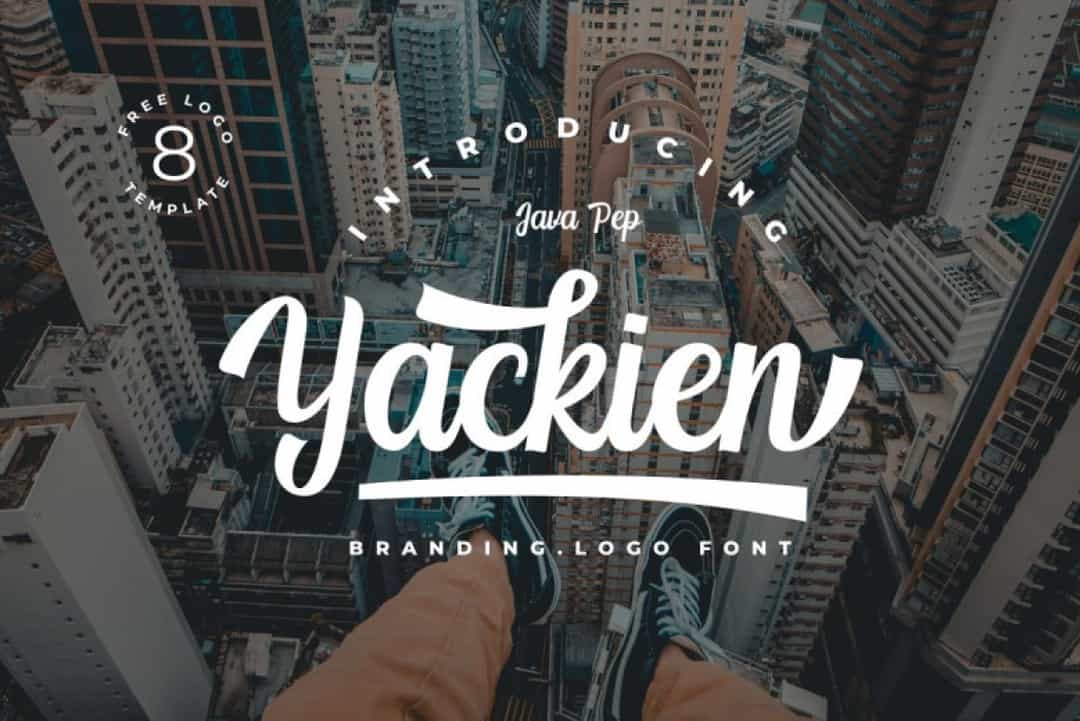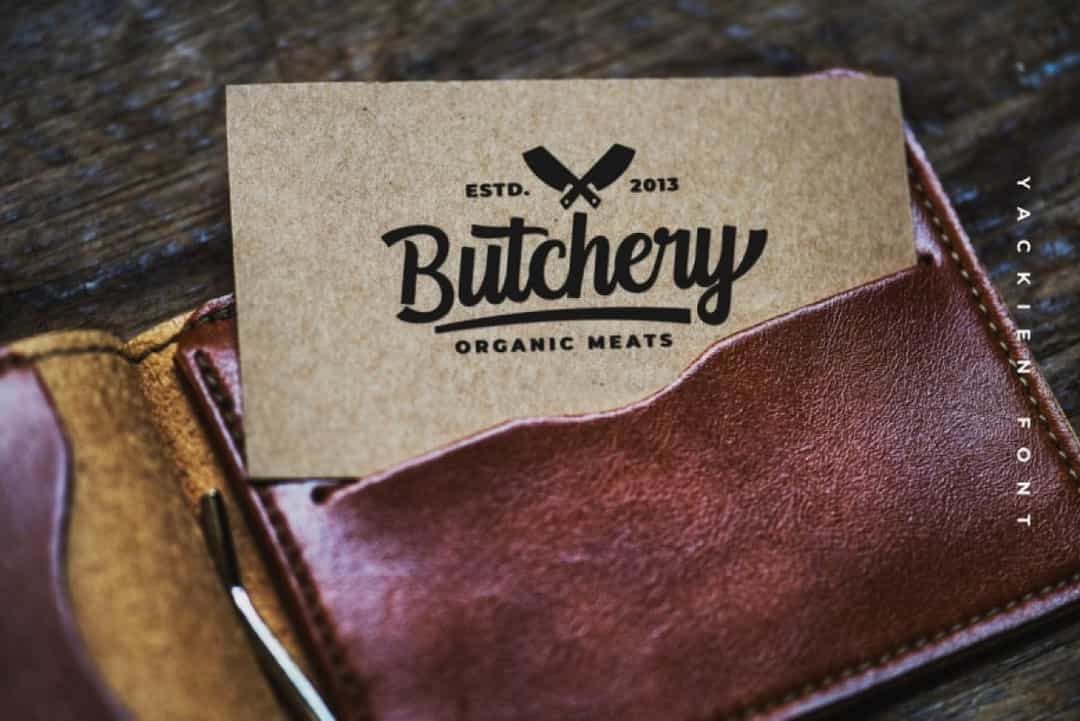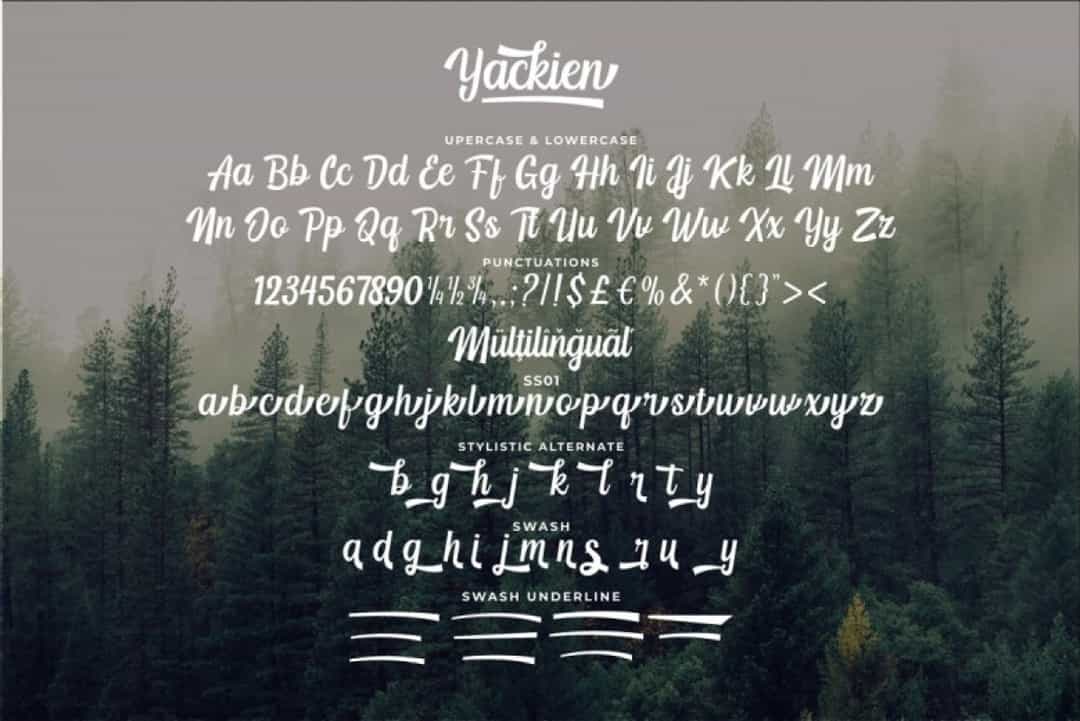
Now available is Yackien Font, designed specifically to be used for logo and branding projects while remaining elegant enough for other design endeavors. Yackien (yakin) is an Indonesian language which means trust, belief, and persuasive; thus evoking these characteristics in your company logo design or design projects using this font.